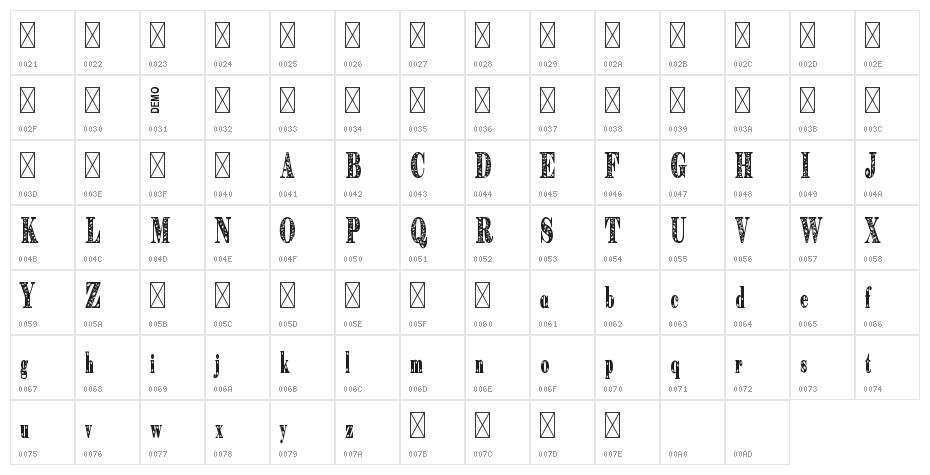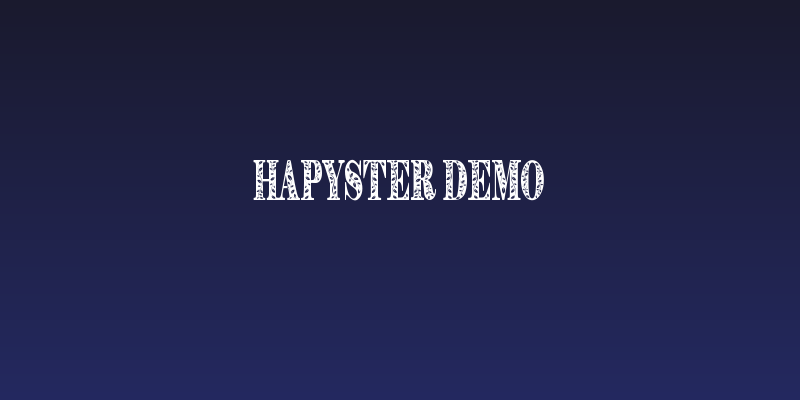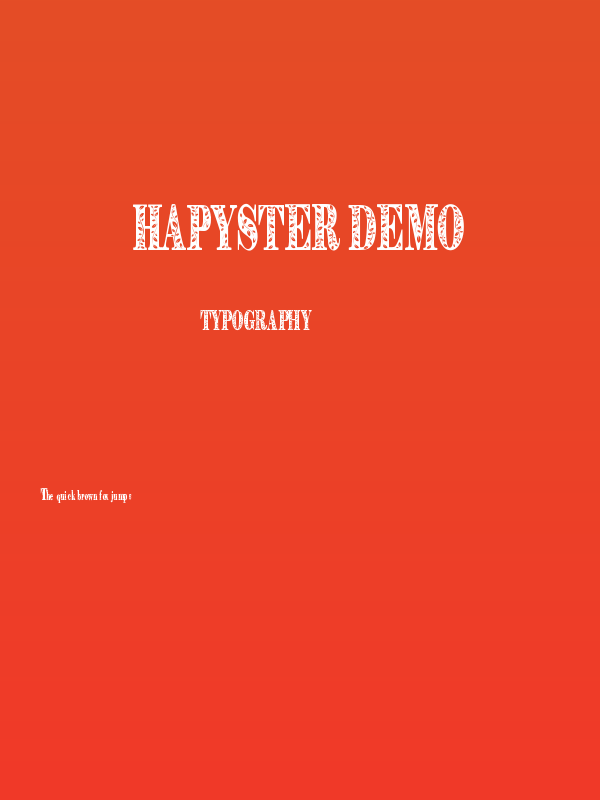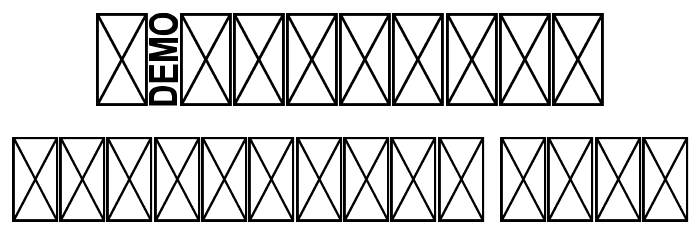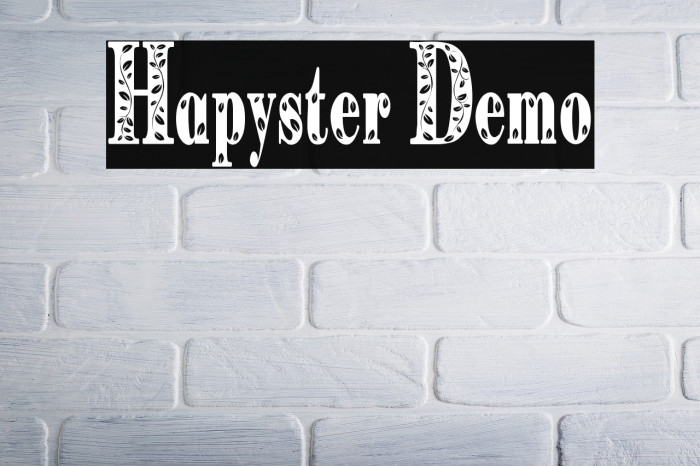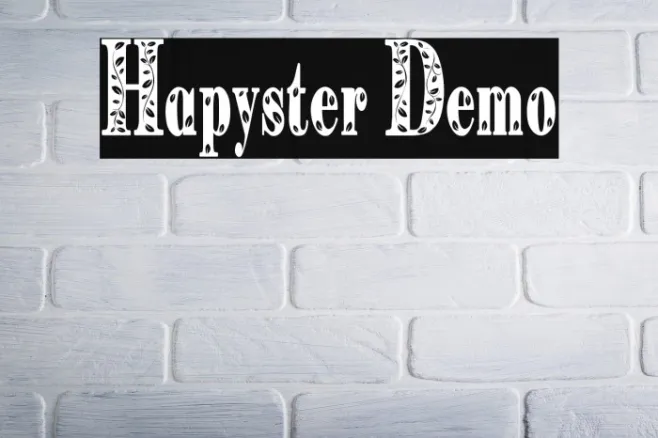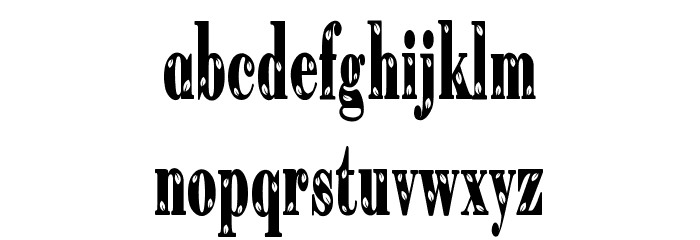
Hapyster Demo Font
Hapyster Demo Description
This font features a bold and decorative style with intricate patterns within each character, creating a unique and eye-catching appearance. The uppercase letters are particularly ornate, with each letter containing detailed floral or geometric designs that fill the interior space. The lowercase letters maintain a similar decorative theme but with a slightly more subdued pattern, making them more legible while still retaining the font's distinct style. The numbers and special characters follow the same decorative motif, ensuring consistency throughout the typeface. This font is ideal for projects that require a strong visual impact and a touch of elegance.
| Proposed Projects | Ideal for posters, invitations, branding, and any design requiring a striking visual element. |